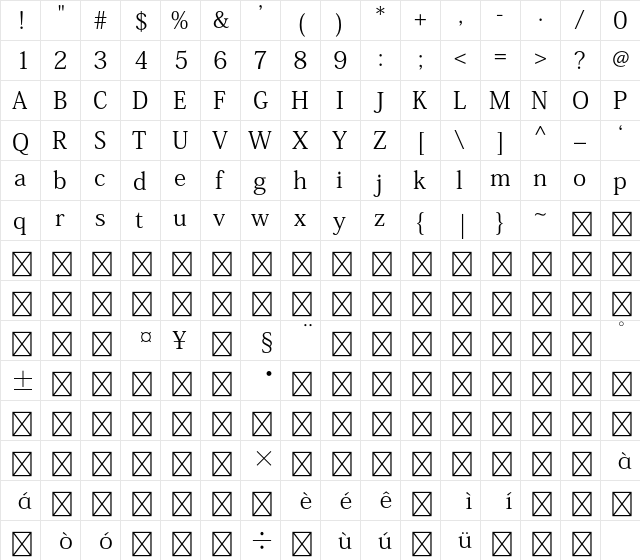
Adobe Kaiti Std R
Design Context for Adobe Kaiti Std Typeface
Adobe Kaiti Std takes a measured approach to typography — its balanced proportions and neutral character make it a reliable workhorse for both digital and print work.